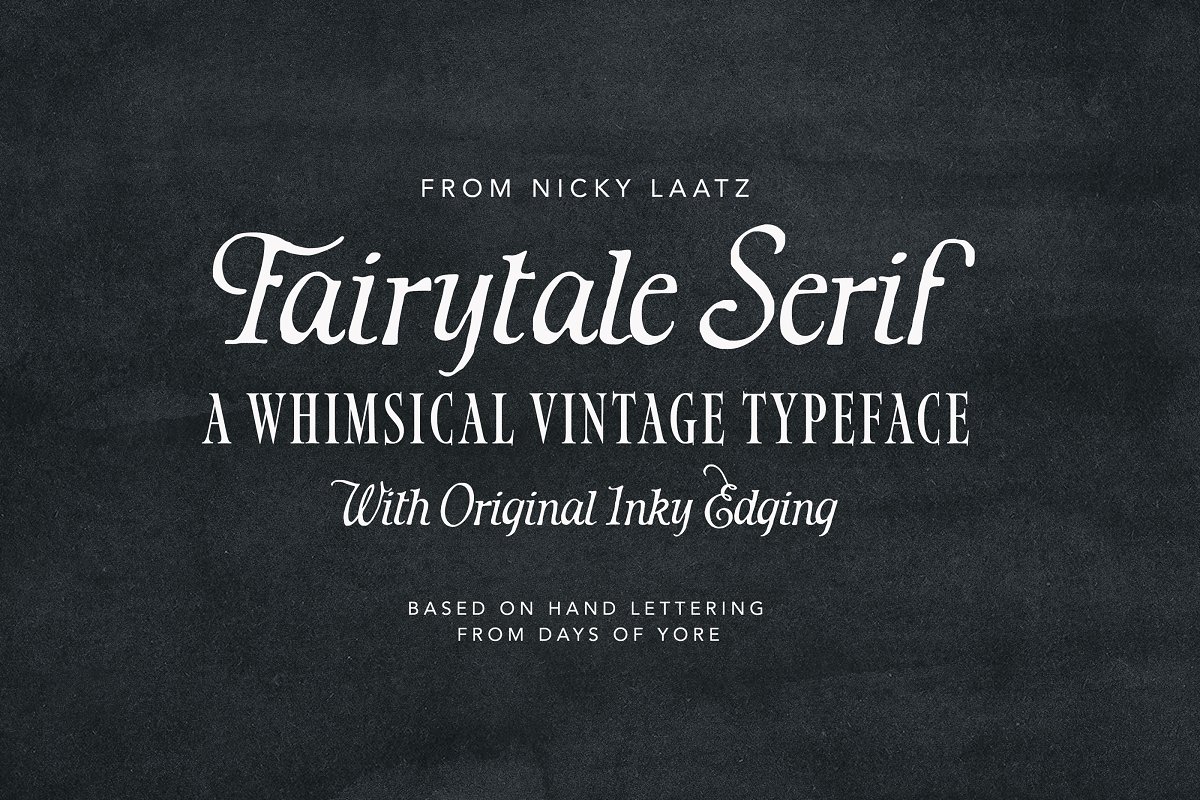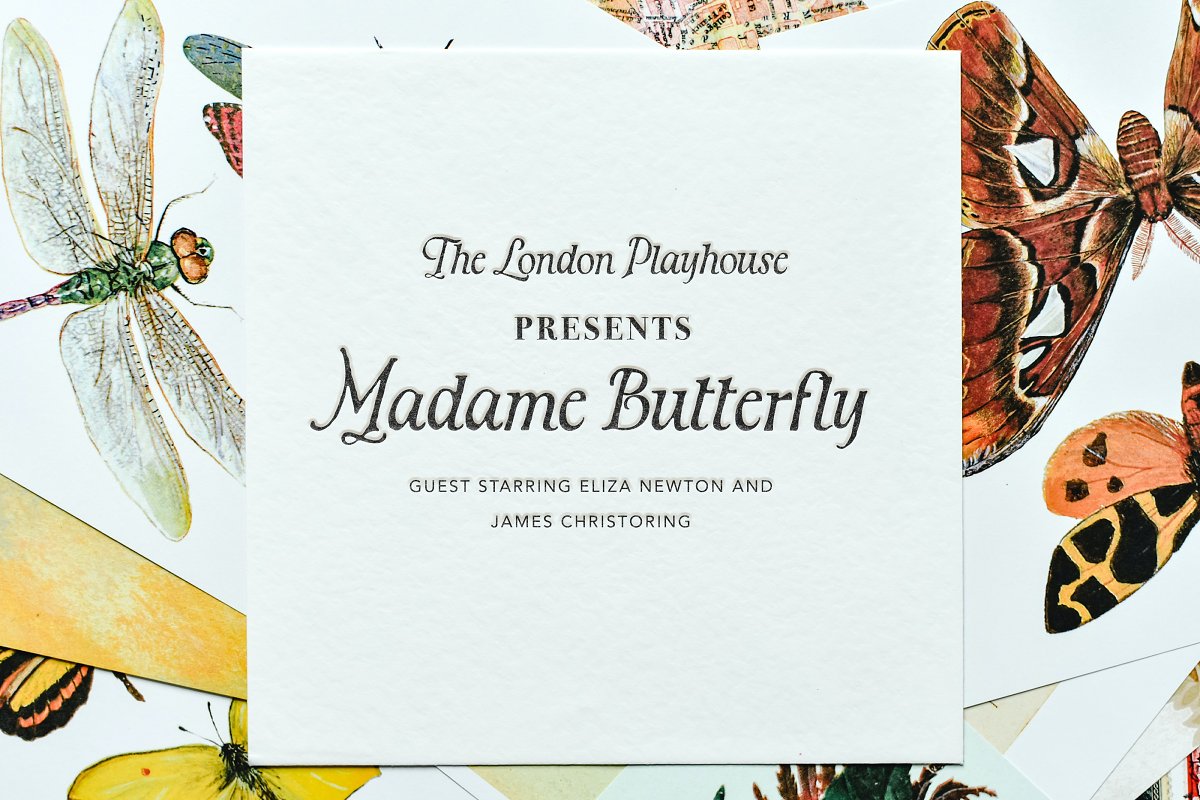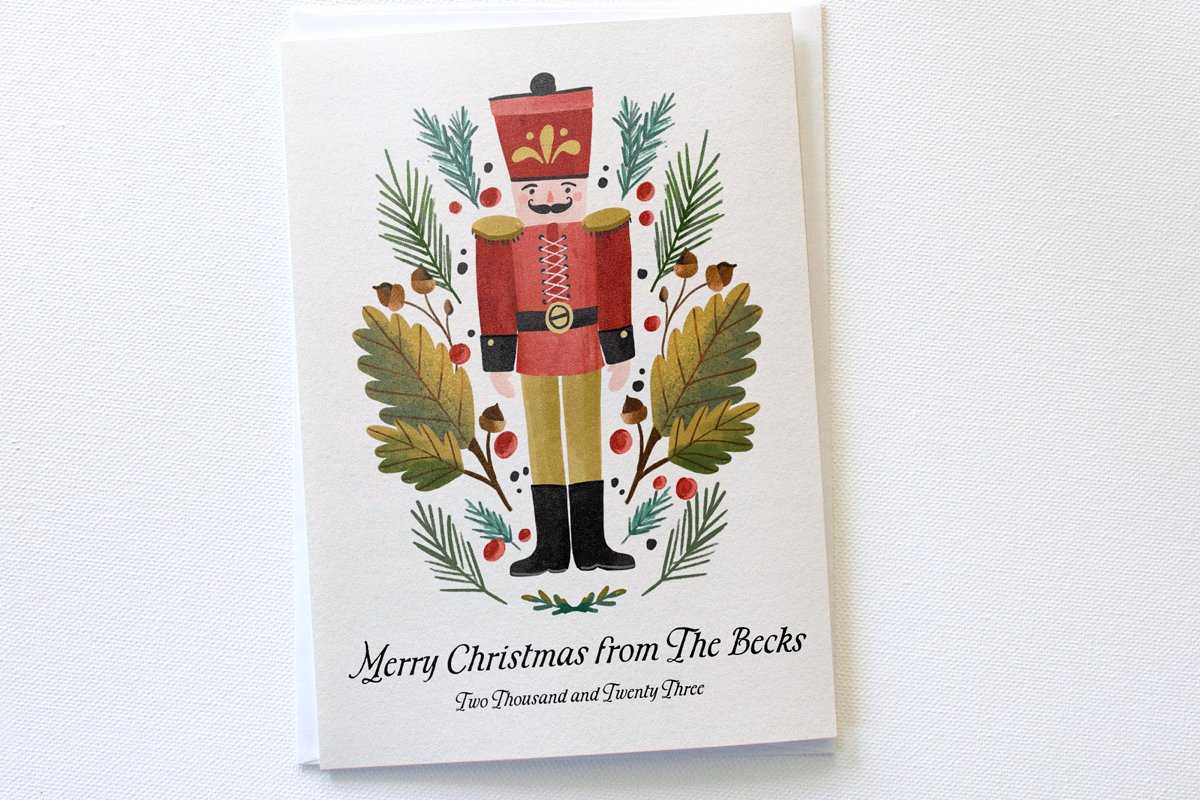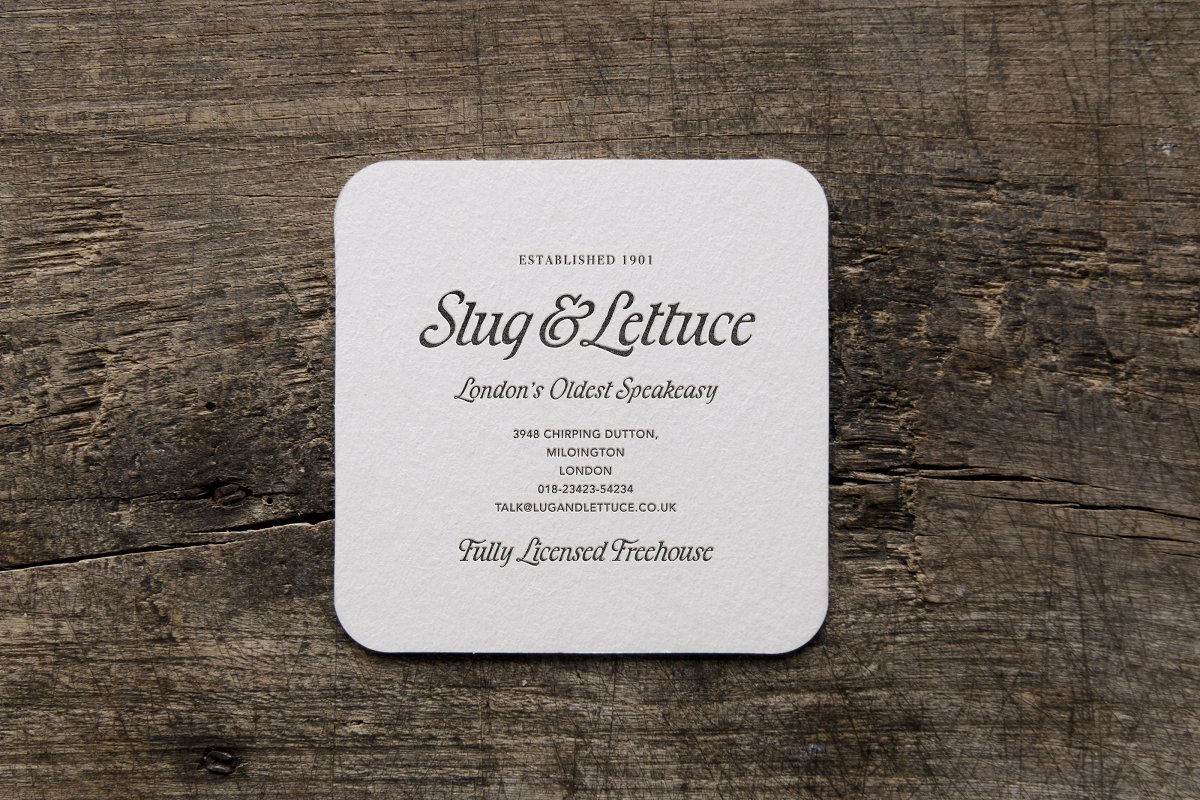
About the Fairytale Serif
A whimsical little serif transporting you back in time, Based on vintage hand scribed italics, Fairytale Serif is ready to charm it’s beholder with its quaint inky edged letters, Available in Regular and Oblique, Languages Supported :Danish, English, French, Irish, Italian, Low German, Luo, Luxembourgish, Norwegian Bokmål, Norwegian Nynorsk, Portuguese, Spanish,Swedish, Swiss German